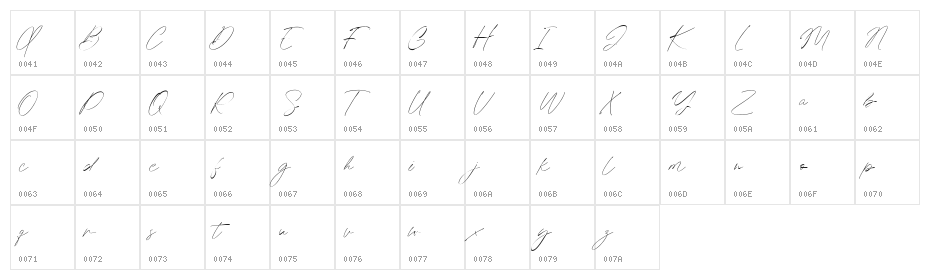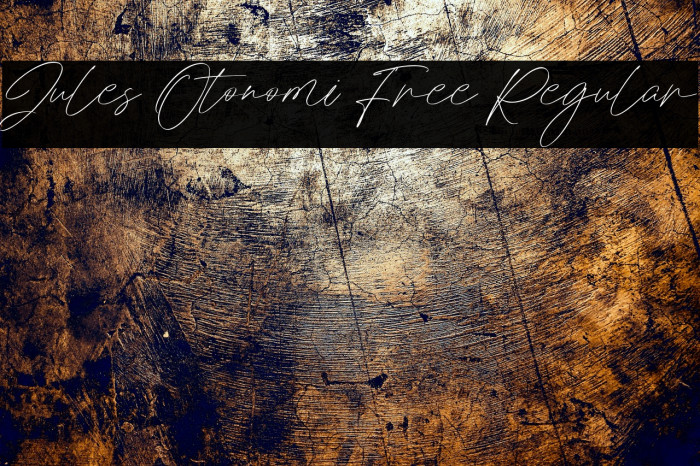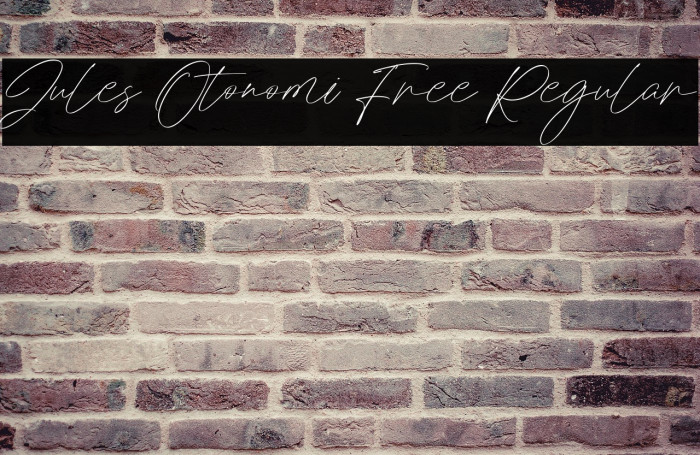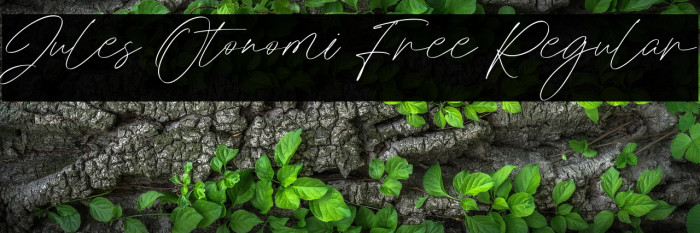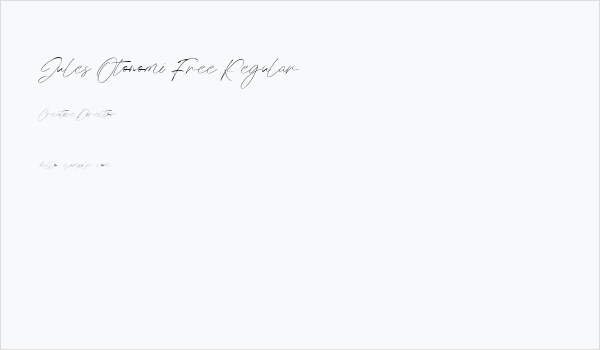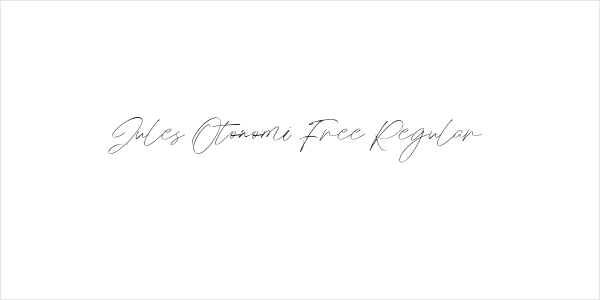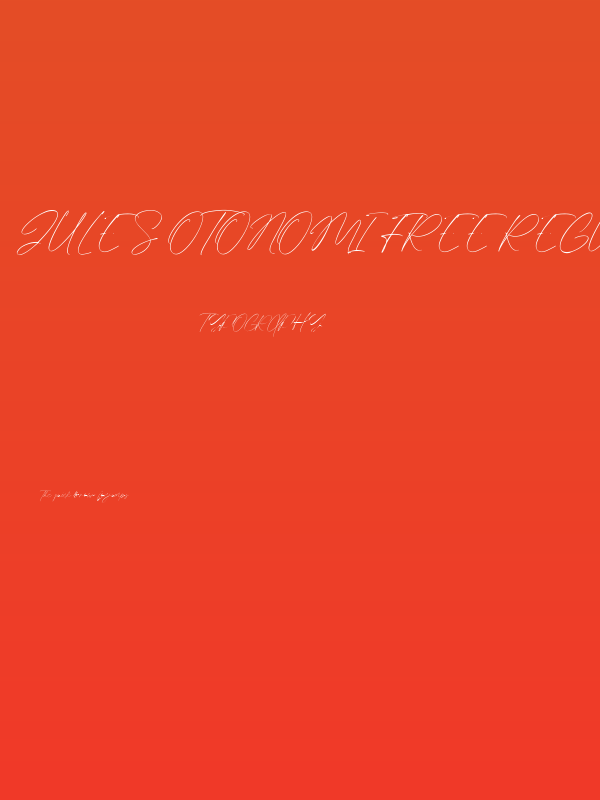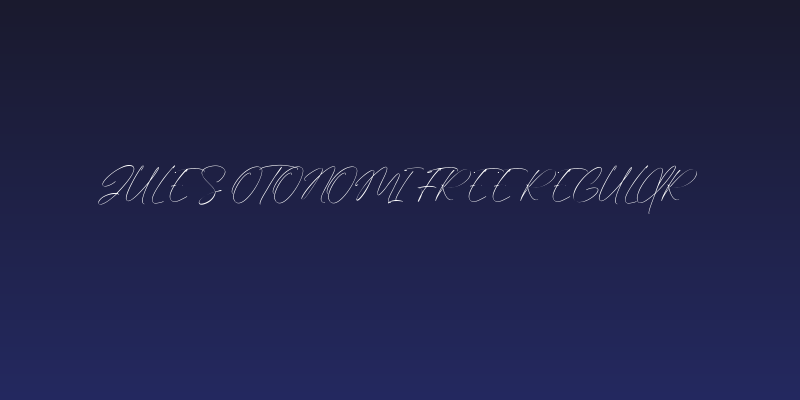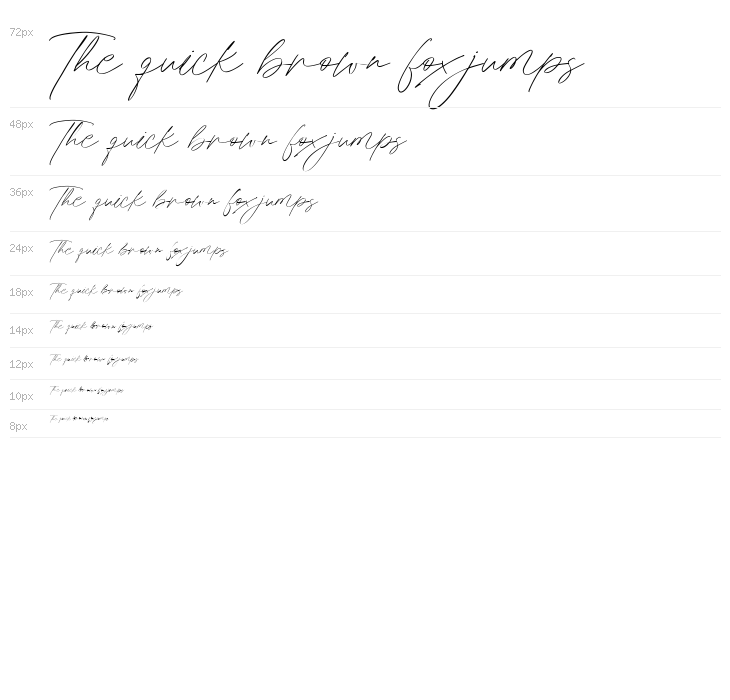
Jules Otonomi Free Regular Font
Jules Otonomi Free Regular Description
This font exudes elegance and sophistication with its fluid, cursive style. The letters are interconnected, creating a seamless flow that mimics natural handwriting. The strokes are thin and delicate, adding a touch of grace and refinement. The uppercase letters are slightly more elaborate, with sweeping curves and loops, while the lowercase letters maintain a consistent, flowing form. This font is perfect for projects that require a personal, artistic touch, such as invitations, greeting cards, or branding materials. Its decorative nature makes it stand out, yet it remains legible and stylish.